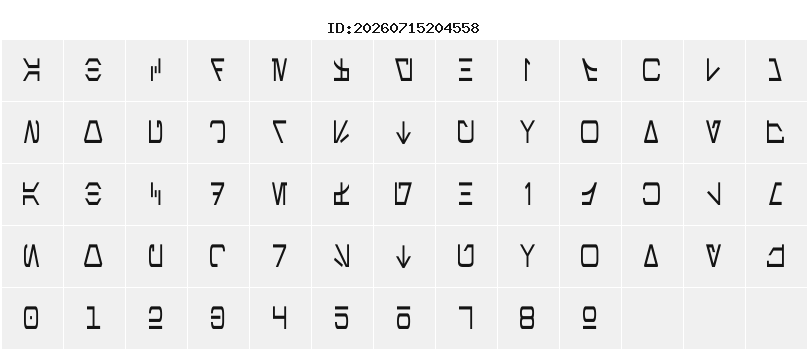
Aurebesh Condensed Preview
• Font Name: Aurebesh Condensed
• Full Font Name: Aurebesh Condensed
• Designer: Neale Davidson
About Aurebesh Condensed.ttf
Aurebesh Condensed.ttf is a modern, elegant sans-serif font designed for ultimate readability and visual harmony. Perfect for branding, headlines, web design, and print materials.